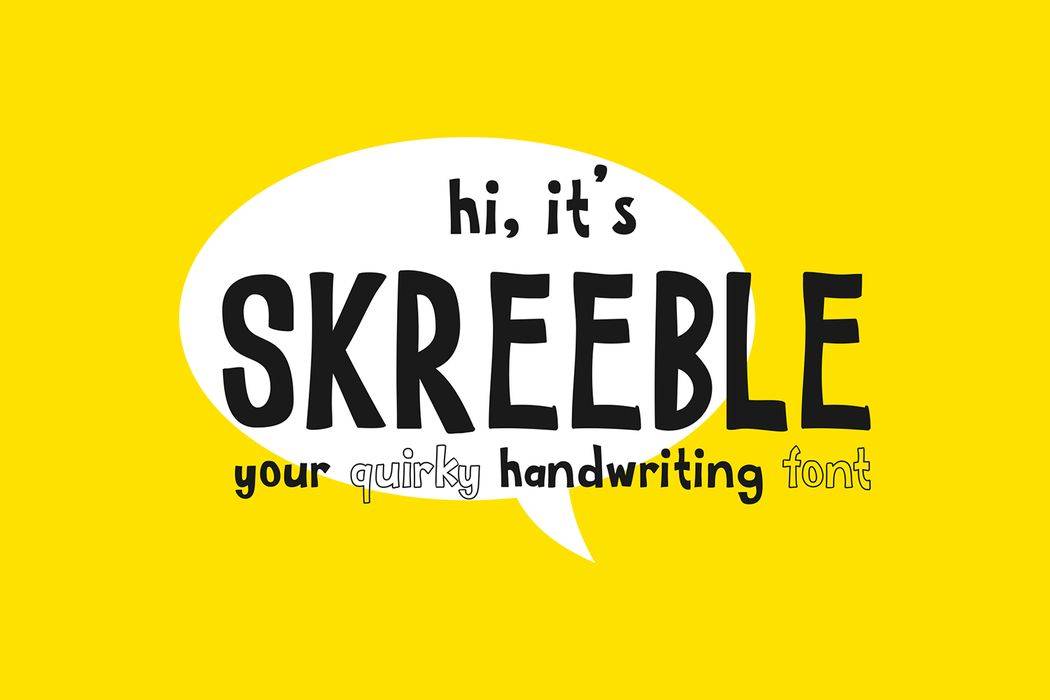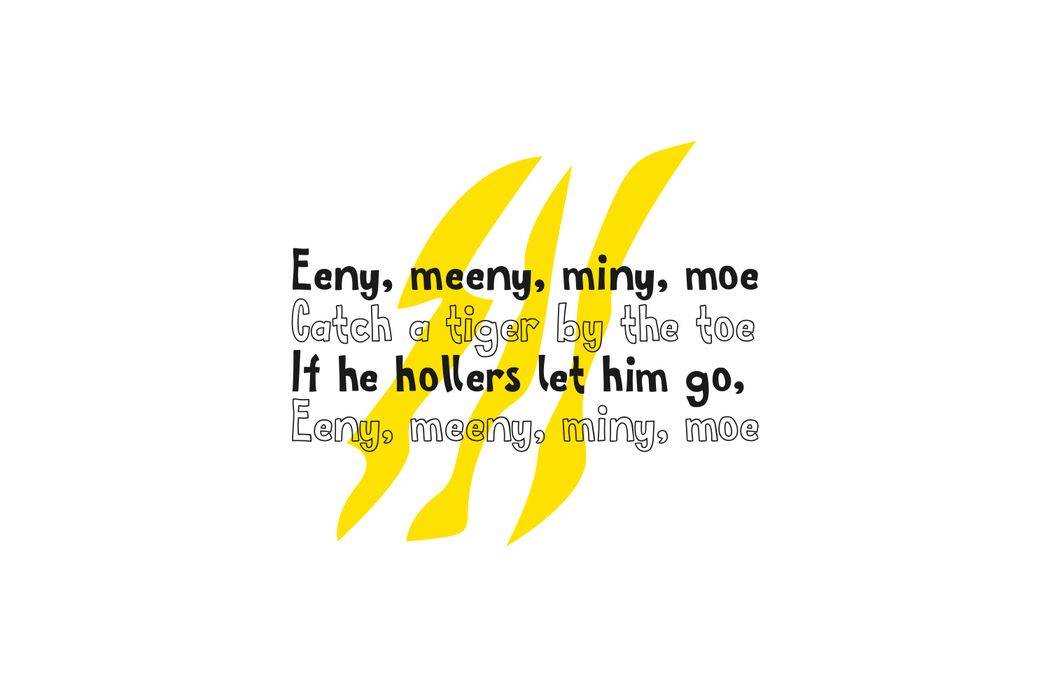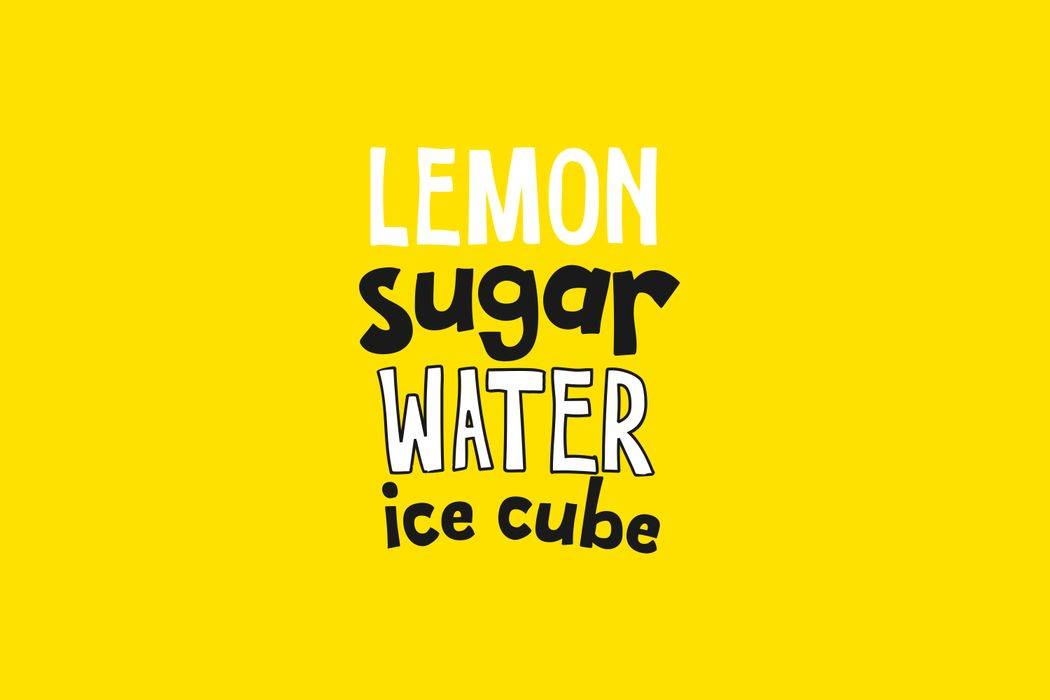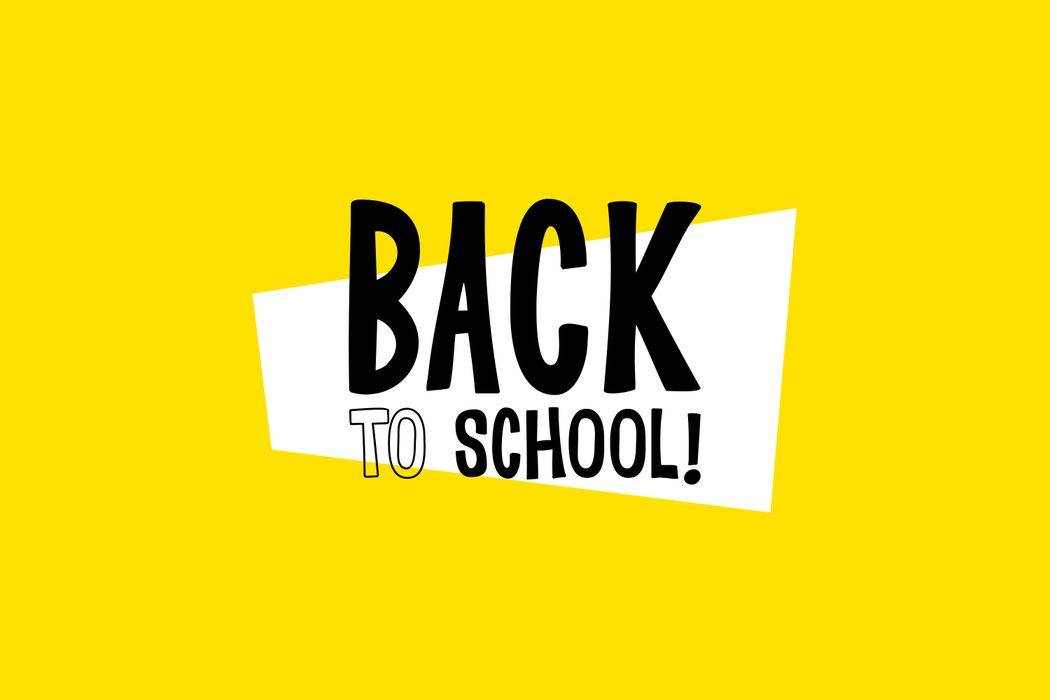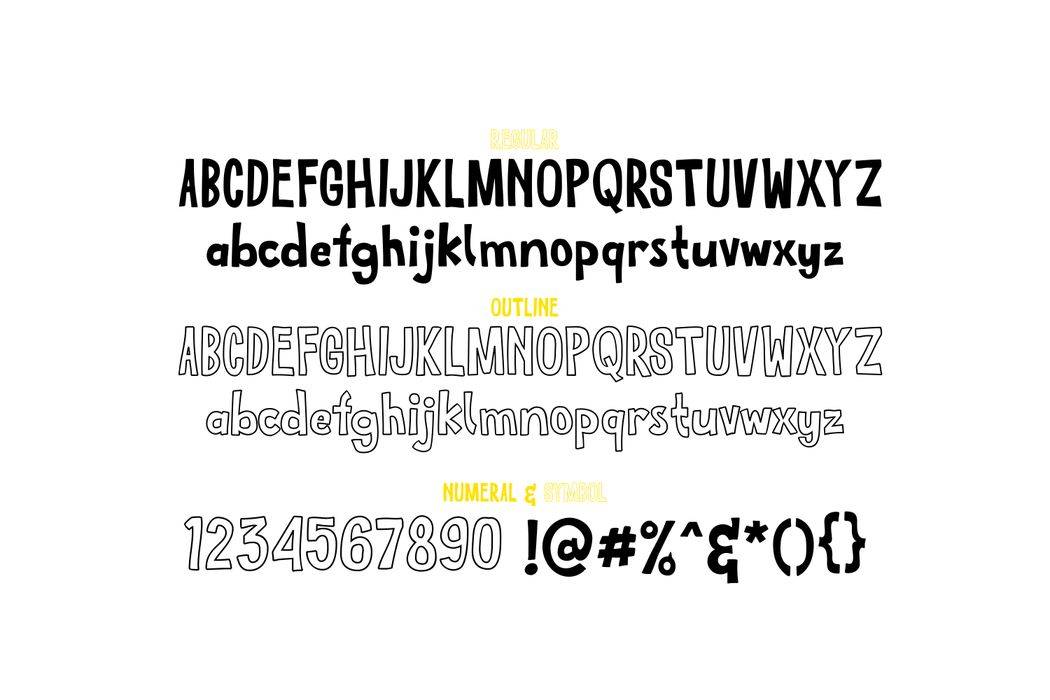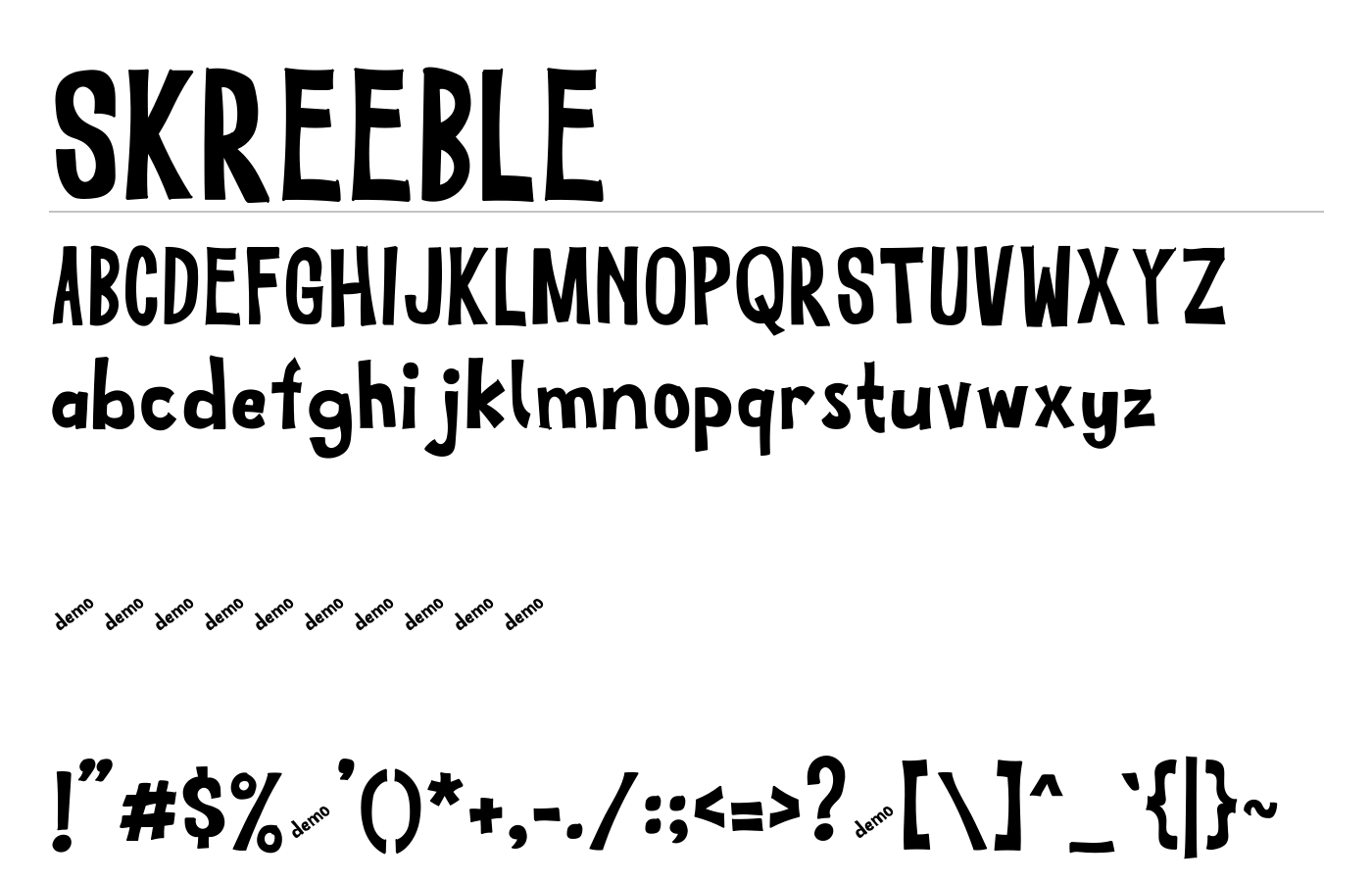
Skreeble is a playful and quirky sans-serif font with a hand-drawn feel, featuring irregular, slightly condensed letterforms and moderate x-height that give it a lively, informal character. Its uneven strokes and whimsical shapes make it ideal for fun, casual designs such as children’s books, creative posters, and friendly branding where a relaxed and approachable tone is desired.
Skreeble Font
About Skreeble Font
| Font family | Skreeble Font |
| Designer | alexatype |